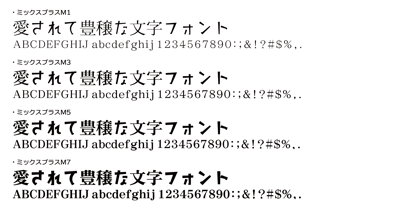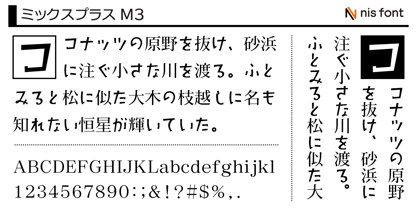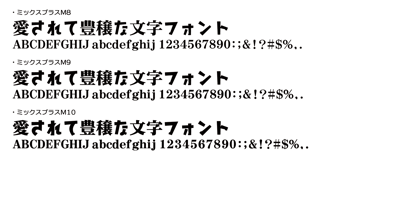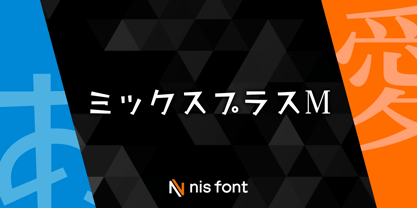
OT-NIS_MPM
by NIS Fonts
The OT-NIS_MPM Font Family was designed by and published by NIS Fonts. OT-NIS_MPM contains 7 styles and family package options. More about this family
The "OT-NIS_M Series" font features kana characters replaced with the corresponding weights from Kana Mix. Including this product, it offers a family of seven weights, allowing users to choose the appropriate weight depending on the intended application. Supports the JIS2004 character set.